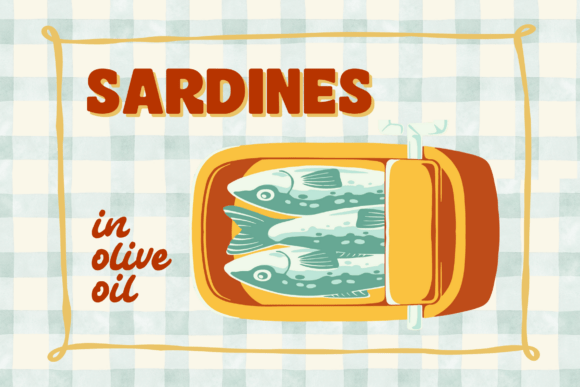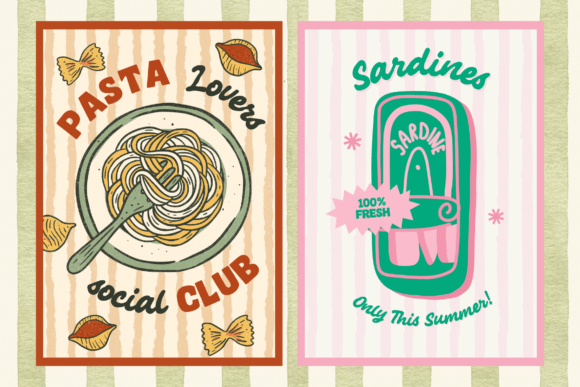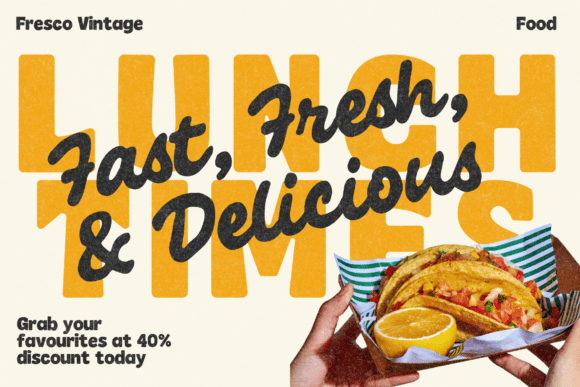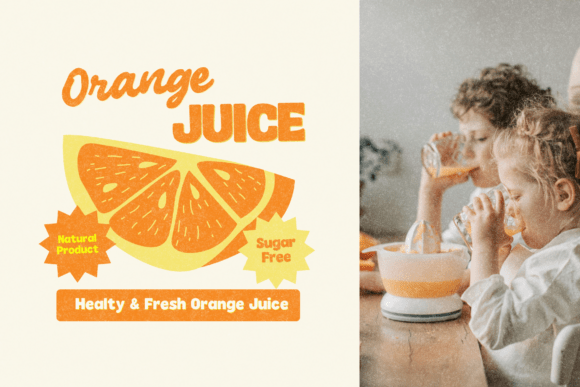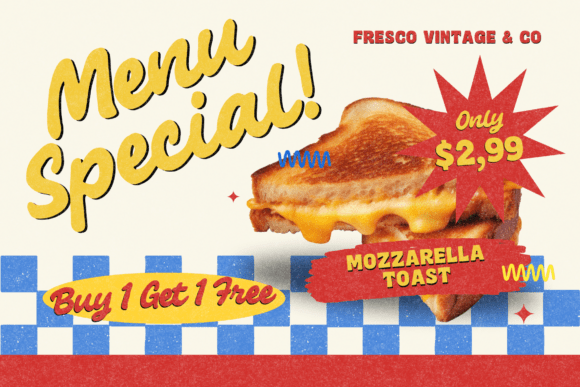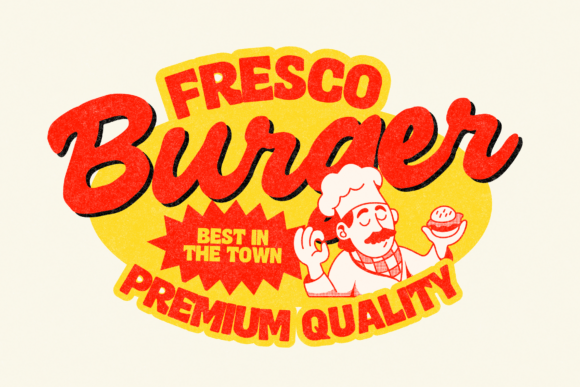
Finding Inspiration in the Past: A Designer’s Dream Font
Have you ever stumbled upon an old, worn-out food label or a retro advertisement in a dusty magazine, and suddenly found yourself transported to a bygone era? For designers, this is the moment of pure magic, where creativity strikes and ideas begin to flow. The nostalgia of vintage design elements can be a powerful trigger for innovation, and that’s exactly what the Fresco Vintage Duo Font is all about.
Designed by the talented team at Creacy Studio, this dynamic duo typeface is a carefully crafted blend of bold sans and smooth script, drawing inspiration from the classic signs of vintage grocery stores, coastal eateries, and mid-century food advertisements. With its unique combination of playful rhythm and weighty assertion, the Fresco Vintage Duo Font is a must-have for designers looking to add a touch of retro charm to their projects.
Whether you’re a seasoned designer or just starting out, the Fresco Vintage Duo Font is a valuable asset that can help you create striking headlines, memorable packaging, and captivating branding gestures. Its versatility, combined with its timeless appeal, makes it an essential tool for any creative project.
Fresco Vintage Duo Font Key Features
- Unique Characteristics: The font features a unique vintage aesthetic, with distressed textures and subtle imperfections, giving it a distressed, worn look
- Font Style: The font comes in two styles: Regular and Bold, allowing for a range of design options
Fresco Vintage Duo Font Review
As a designer, I was excited to try out the Fresco Vintage Duo Font, and overall, it’s a lovely addition to my font collection. ✨ Here are some things that work well:
- Unique blend of vintage and modern elements – it’s perfect for adding a touch of elegance to your designs.
- Well-structured and organized, making it easy to navigate and find the right font styles.
However, like any font, it’s not without its limitations. ⚠️ Some of these include:
- Limited font weights and styles – it may not be suitable for projects that require a wide range of font options.
- Some characters may not display perfectly in certain font sizes or combinations.
Overall, I’m quite happy with the Fresco Vintage Duo Font. It’s a beautiful and versatile font that’s perfect for a variety of design projects, from wedding invitations to branding materials. If you’re looking for a unique and elegant font, I’d definitely recommend giving it a try.
Tips for Getting the Most Out of Fresco Vintage Duo Font
Use the font in conjunction with distressed textures or watercolor effects for a vintage look.
Pair the font with bold, contrasting colors to create visual interest.
Experiment with different font sizes and spacing to create a unique, eye-catching design.
Marketing materials, such as brochures and flyers.
Artistic projects, such as illustrations and graphics.
Alternatives to Fresco Vintage Duo Font
The Great Vibes Font is a beautiful script font that can be used for various purposes, including invitations, quotes, and branding. It’s ideal for designers who want to create a nostalgic and elegant look. Compared to Fresco Vintage Duo Font, Great Vibes Font has a more delicate and refined feel, making it suitable for more formal projects.
Pacifico Font is a modern script font that works well for headings, titles, and short paragraphs. It’s perfect for designers who want to add a touch of sophistication and elegance to their designs. Compared to Fresco Vintage Duo Font, Pacifico Font has a more relaxed and casual feel, making it suitable for projects that require a laid-back vibe.